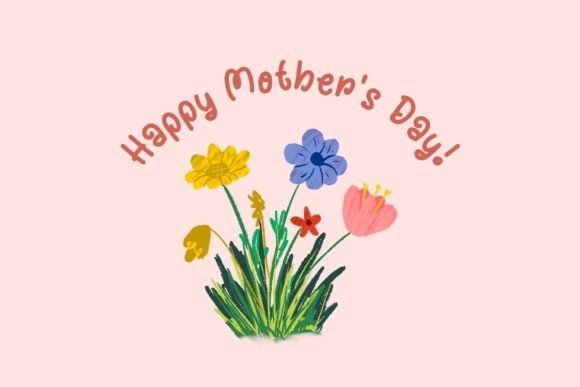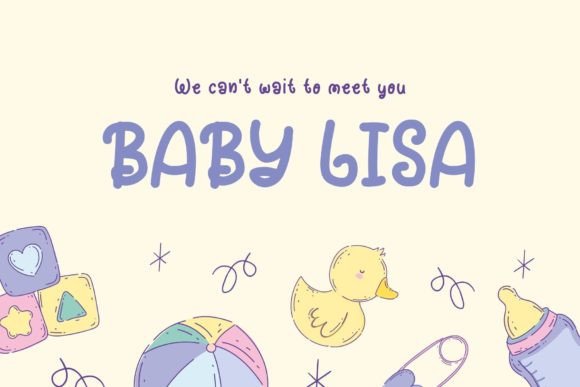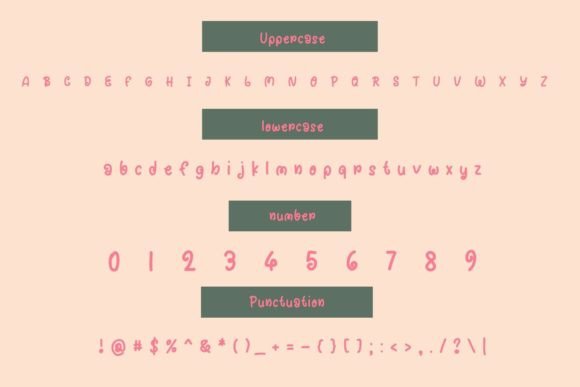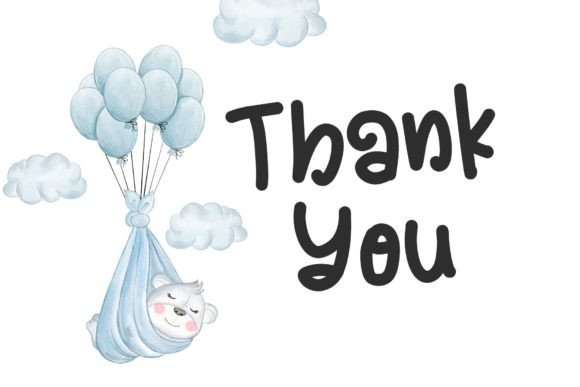
Creating Something Special with Friends Font
Have you ever sat down with a blank page or a blank screen, feeling inspired but unsure of where to start? You’ve got an idea, but it’s still taking shape in your mind. The blankness can be daunting, but the excitement of bringing something new to life is what makes it all worthwhile. For designers, the search for the perfect font can be a crucial part of that creative process.
Enter Friends Font, a charming handwritten font that captures the essence of playfulness and authenticity. Its versatility makes it a go-to choice for a wide range of projects, from blog posts and logos to invitations and decorations. By incorporating Friends Font into your designs, you can add a personal touch that resonates with your audience.
With Friends Font, you can breathe life into your creative endeavors and make them truly special. Its unique charm is sure to make your designs stand out, and its value lies in its ability to connect with your audience on a deeper level.
Key Features of “Friends Font”
- Font Family: Friends Font is a custom, hand-drawn font family designed by hand. It is a proprietary font.
- Size: The font family includes a range of sizes, from 12 points to 72 points, making it suitable for various applications, including print and digital media.
- Resolution: Optimized for high-resolution displays, the font family supports resolutions up to 300 DPI.
- Unique Characteristics: Friends Font features a distinctive, cursive style with rounded edges and a friendly feel, making it perfect for casual and creative projects.
Friends Font Review
When I first laid eyes on the Friends Font, I couldn’t help but feel a sense of nostalgia. The font is a recreation of the iconic font used in the popular 90s TV show Friends. I’ll be honest, I’m a sucker for retro aesthetics, and this font does not disappoint.
- The font’s nostalgic value is undeniable. It’s perfect for anyone who grew up watching the show.
- The font’s design is simple and easy to read, making it suitable for body text.
- The font comes in a range of weights, from light to bold, giving designers flexibility.
- The font may not be suitable for modern or professional designs, as it has a distinctly retro feel.
- The font’s lack of ligatures and advanced typographic features may limit its use in complex designs.
Overall, I think the Friends Font is a fun and quirky addition to any designer’s toolkit. While it may not be suitable for every project, it’s perfect for designers who want to add a touch of nostalgia or whimsy to their designs.
For best results, use Friends Font for casual, handwritten-style text. It’s perfect for:
- Personalized invitations and greeting cards
- Blog posts and social media graphics
- Wedding stationery and event branding
Remember to adjust the font size and spacing to ensure readability and visual appeal.
Alternatives to Friends Font for Designers
Playfair Display is a luxurious, high-end serif font ideal for creating a sense of sophistication and elegance. It is suitable for headings, titles, and other prominent text elements. When to use: luxury brands, high-end advertising, or special occasions.
Comparison to Friends Font: While Friends Font is a sans-serif font, Playfair Display is a serif font with more ornate details, giving it a more formal and luxurious feel.
Great Vibes is a modern, elegant script font perfect for creating a sense of warmth and approachability. It is suitable for headings, titles, and other prominent text elements. When to use: creative projects, wedding invitations, or personal branding.
Comparison to Friends Font: While Friends Font is a sans-serif font, Great Vibes is a script font with a more playful and handwritten feel, giving it a more creative and personal touch.